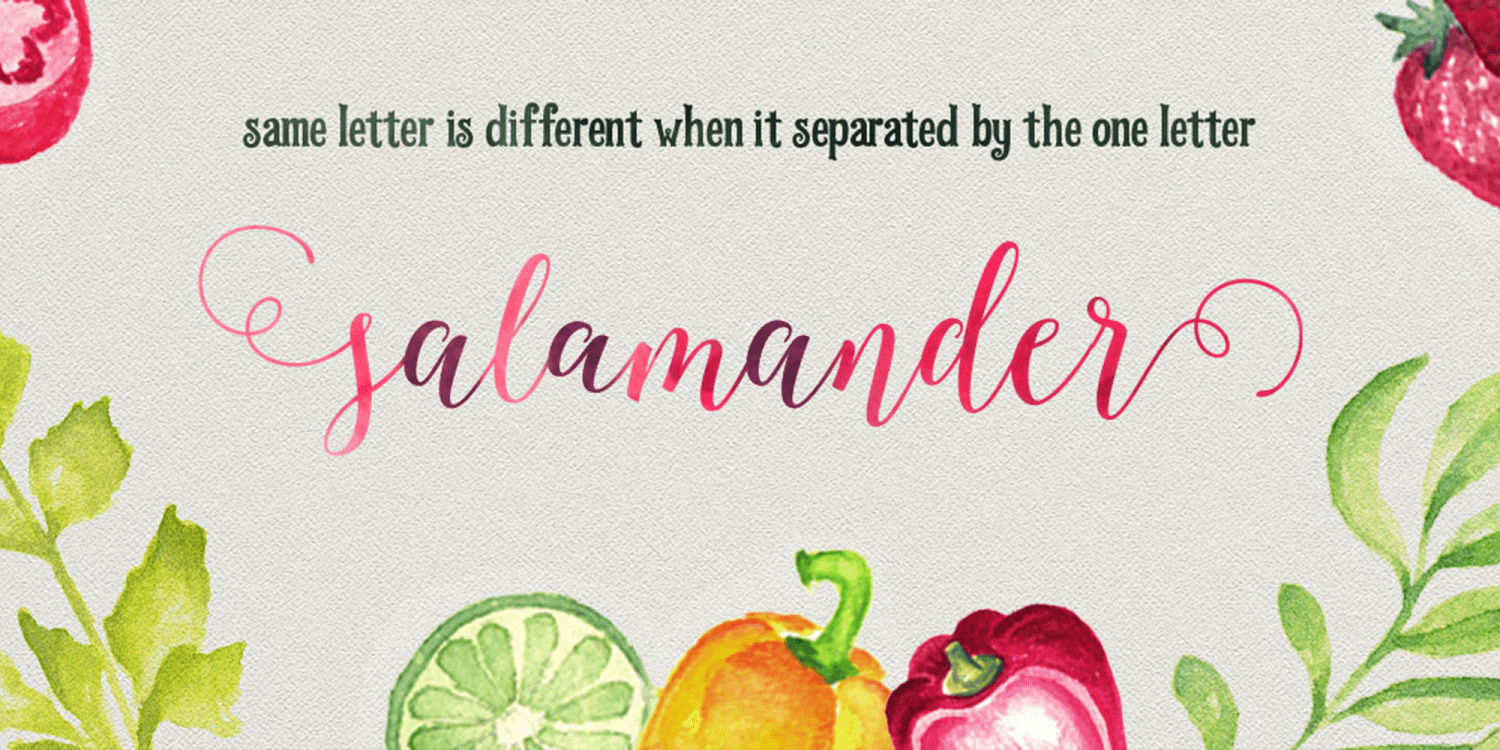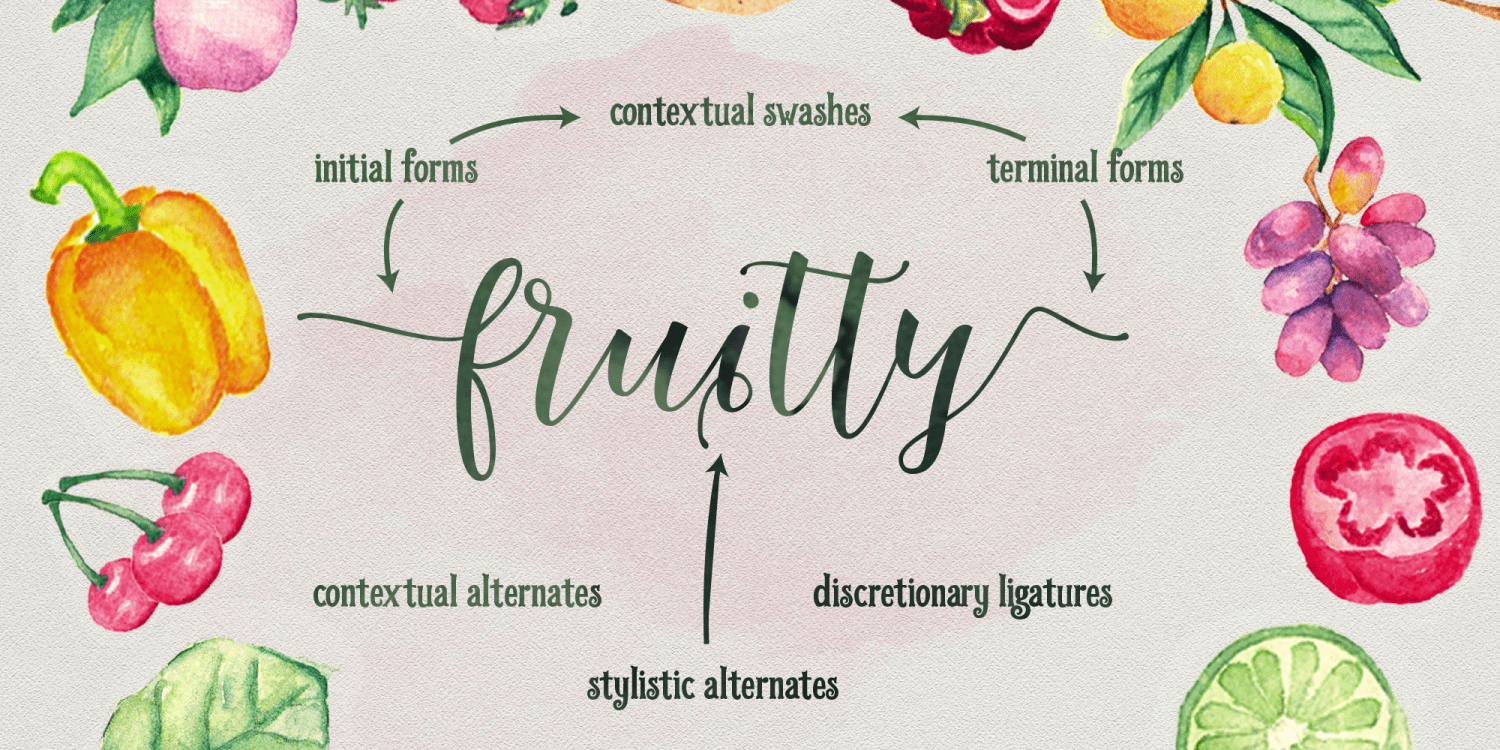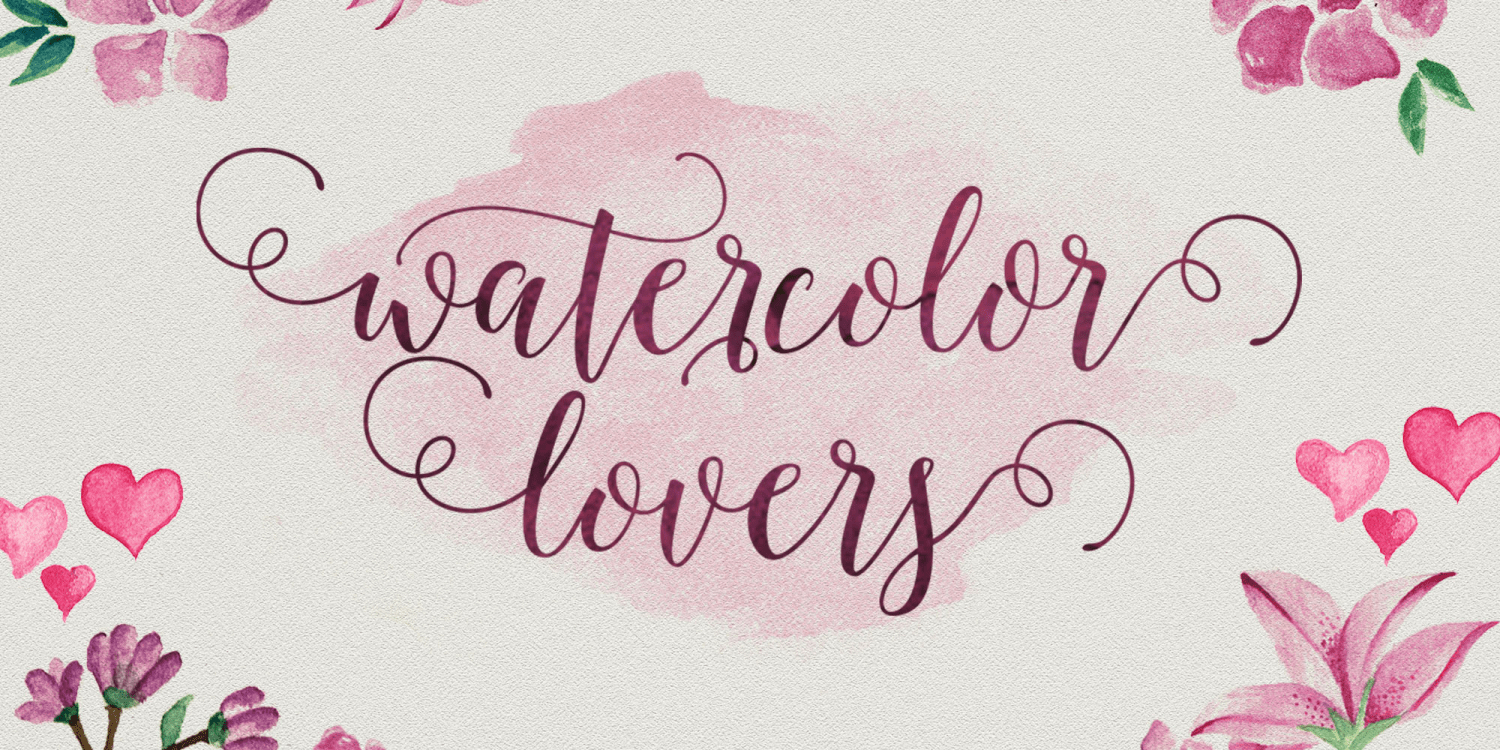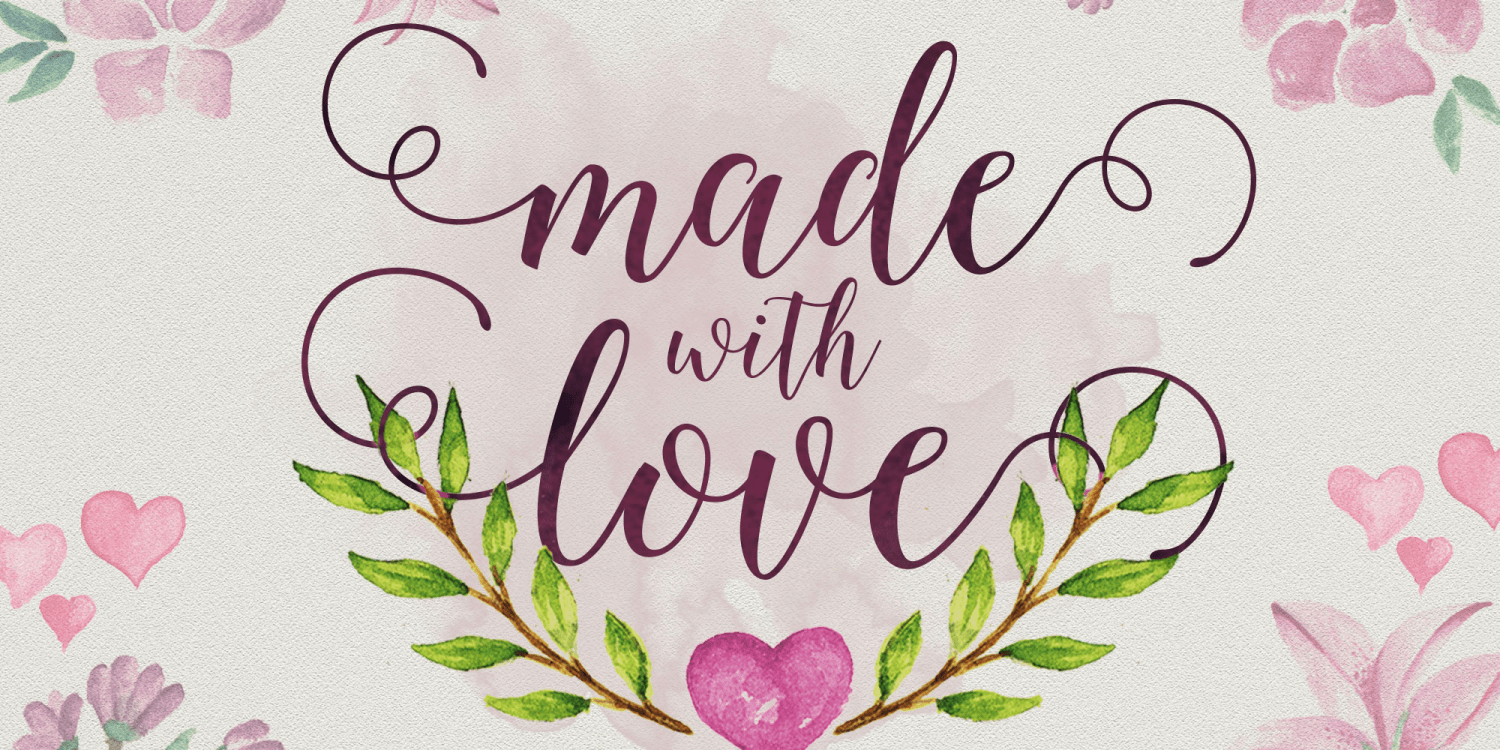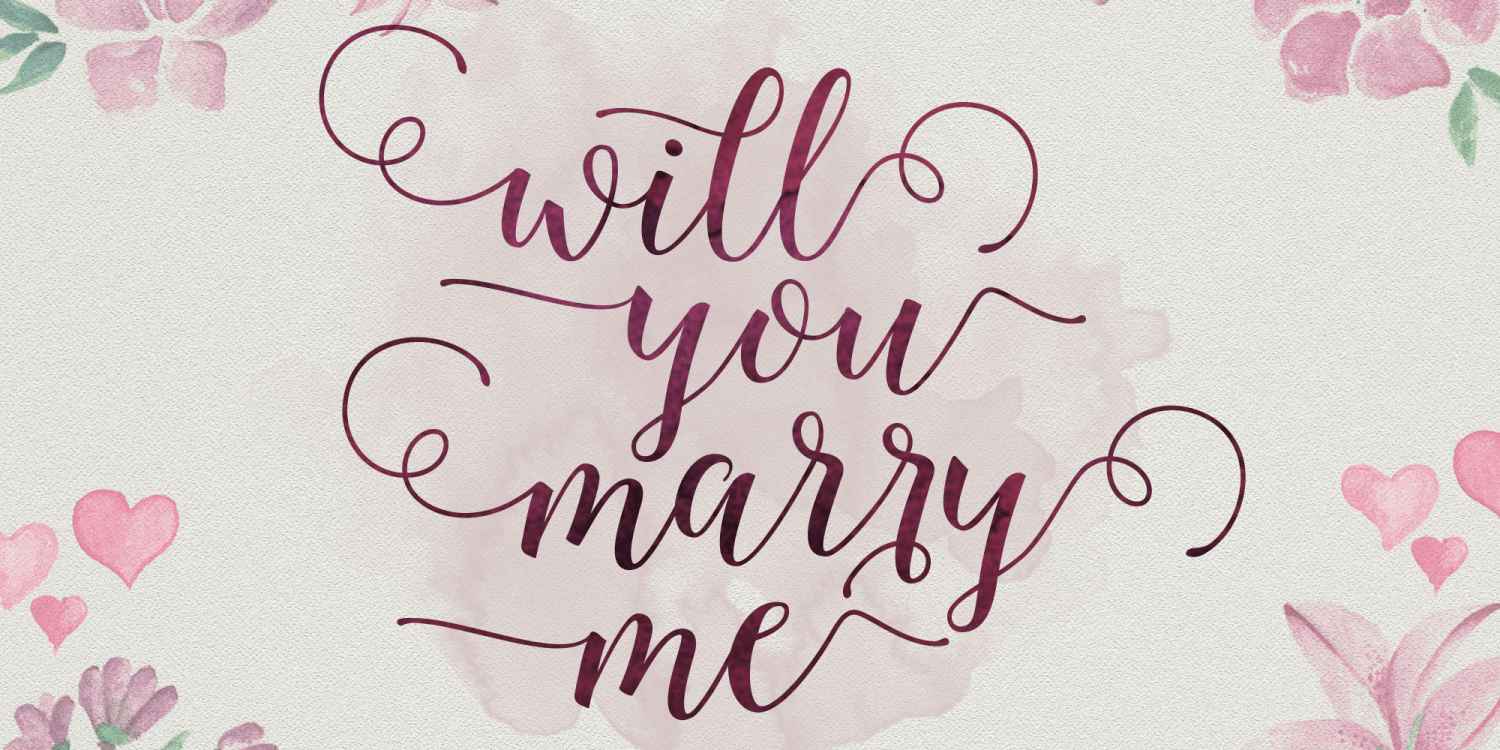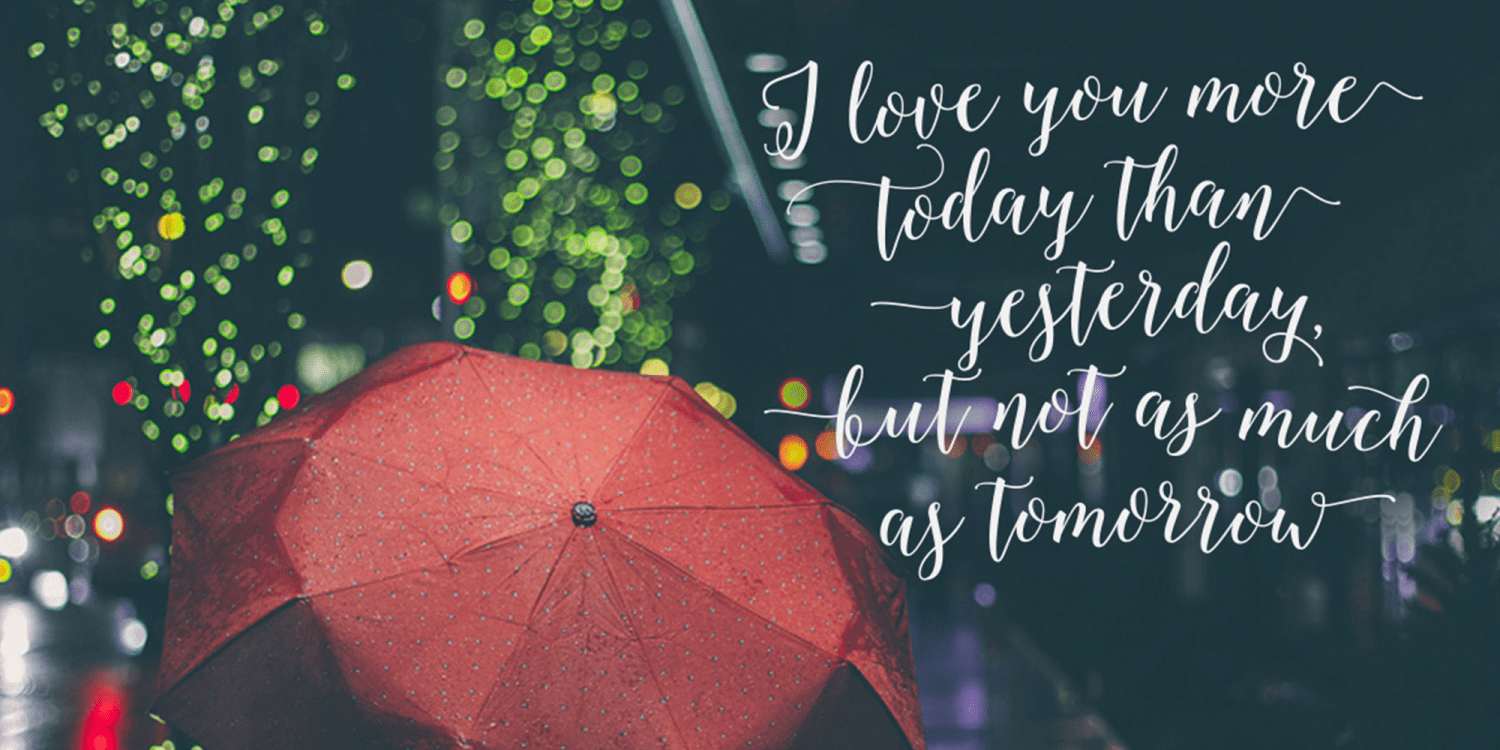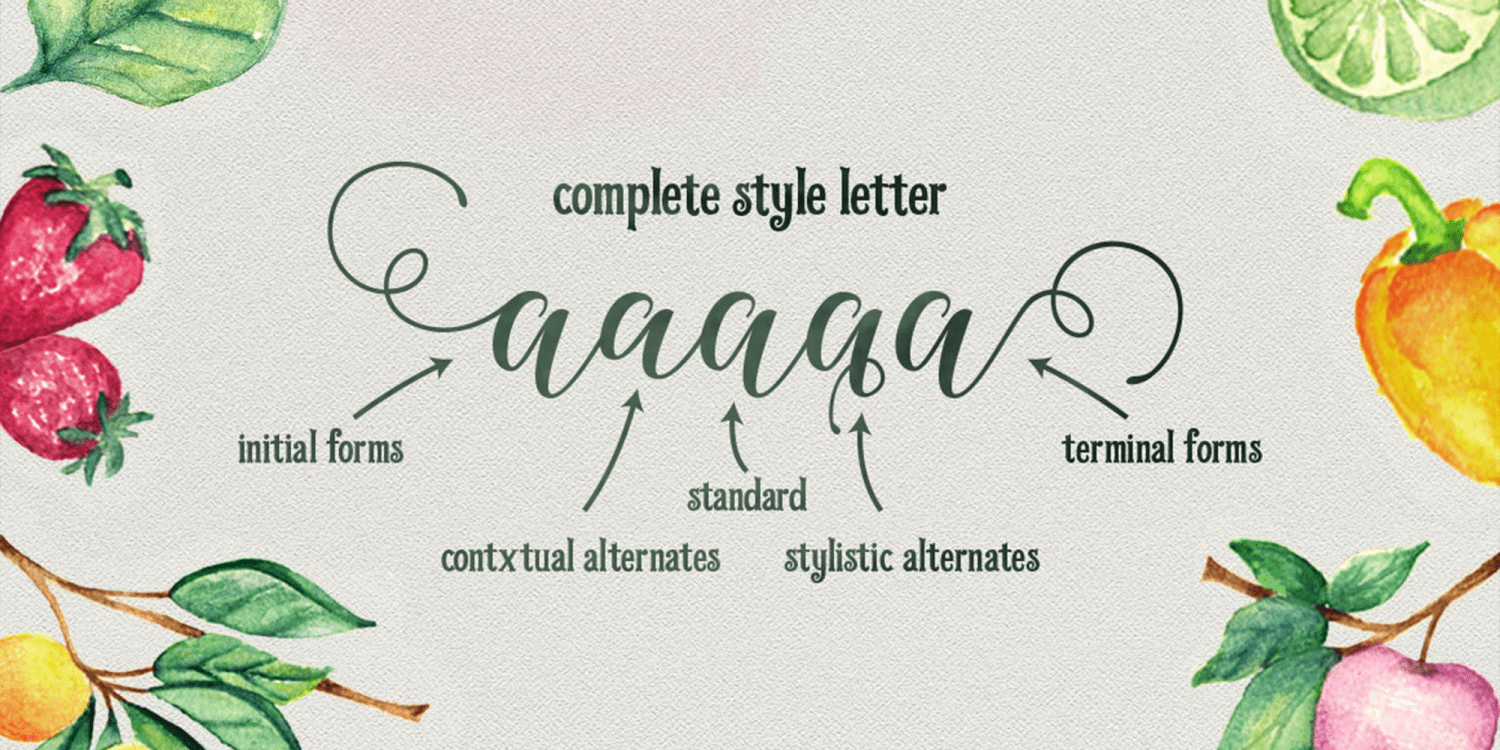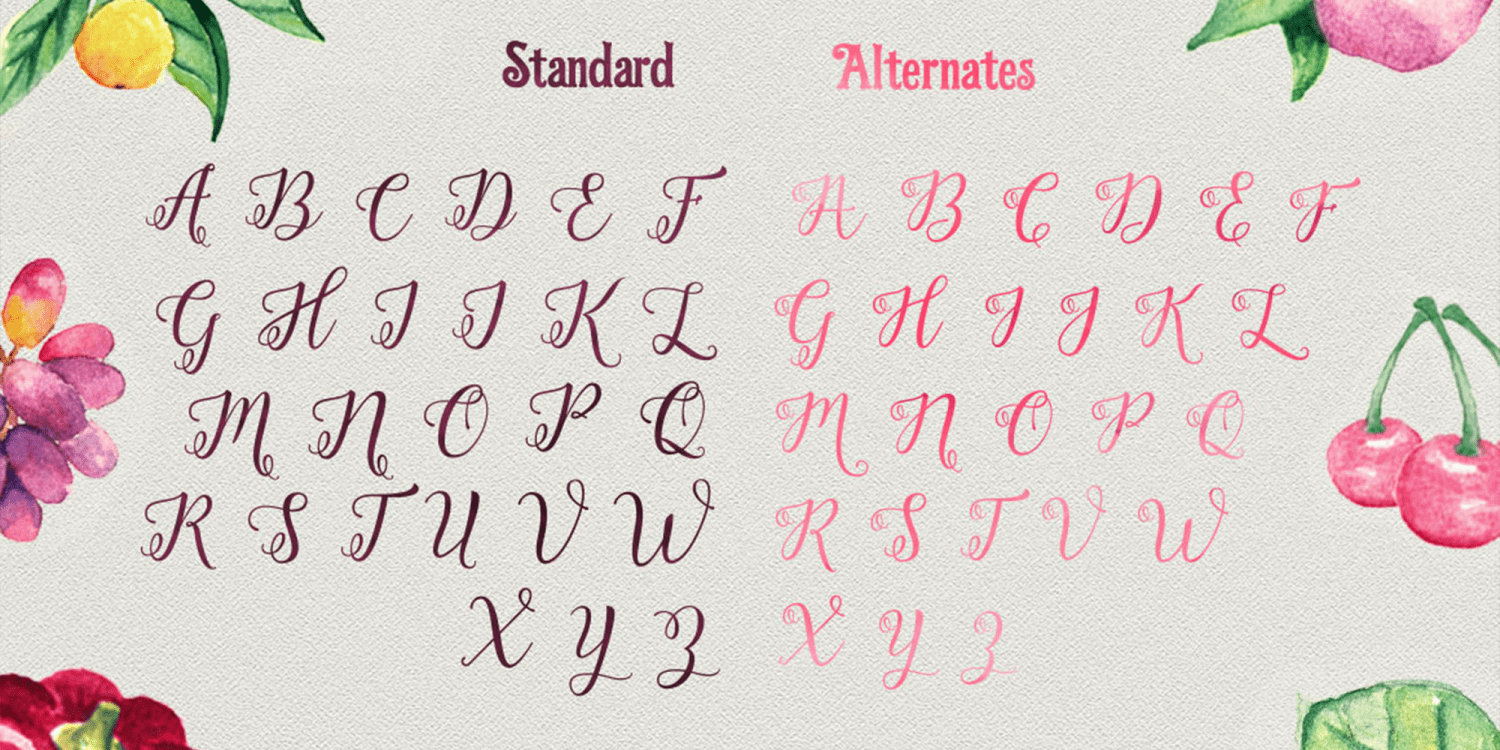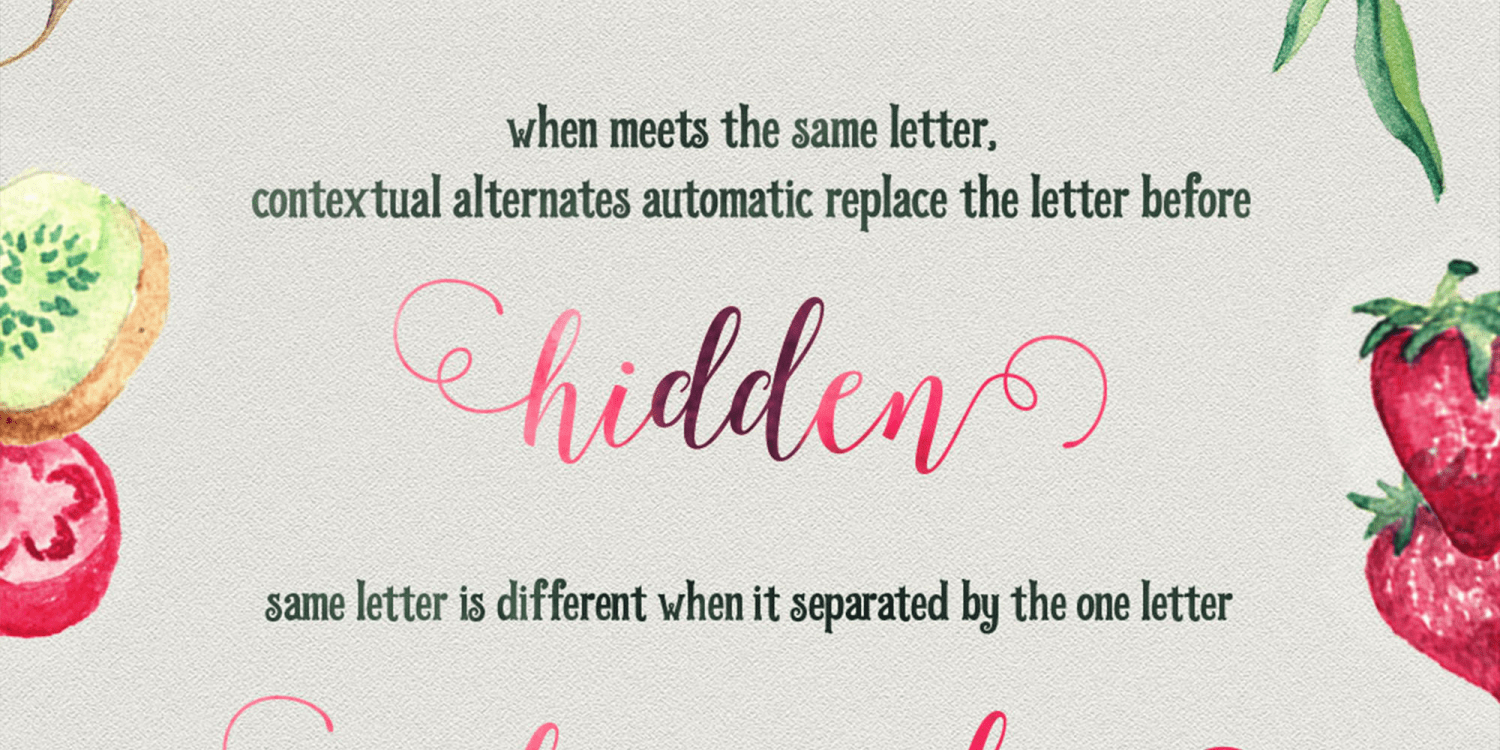
Octavia Script
Lovely modern calligraphy typeface, combining the style of classic calligraphy with a modern style.
Supports OpenType features like:
Contextual Alternates
Discretionary Ligatures
Stylistic Alternates
Contextual Swashes (OctaviaScript automatically sets this by default. To turn off the initial and terminal swashes, just click the Contextual Swashes button - it's much easier than opening the glyph tab)